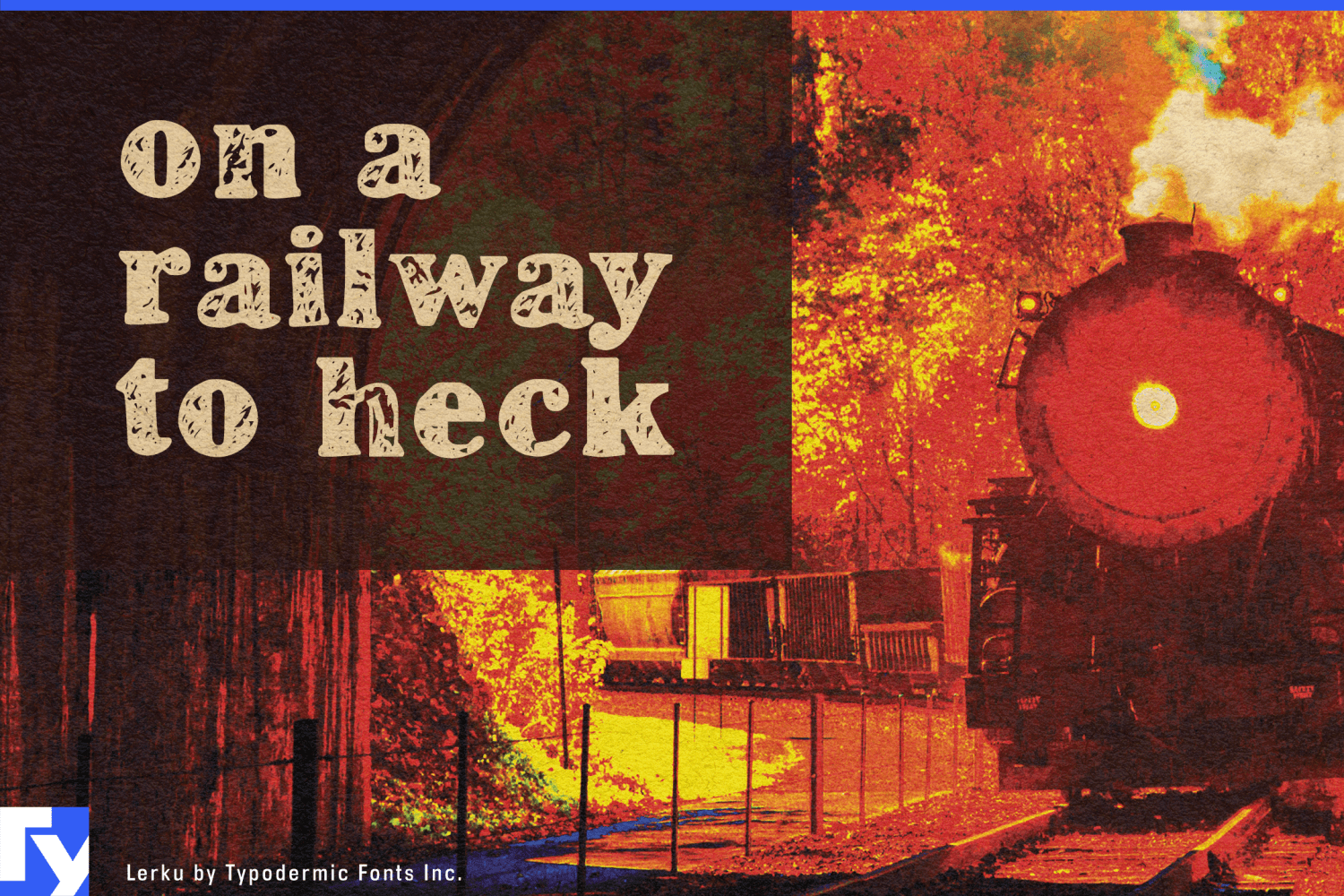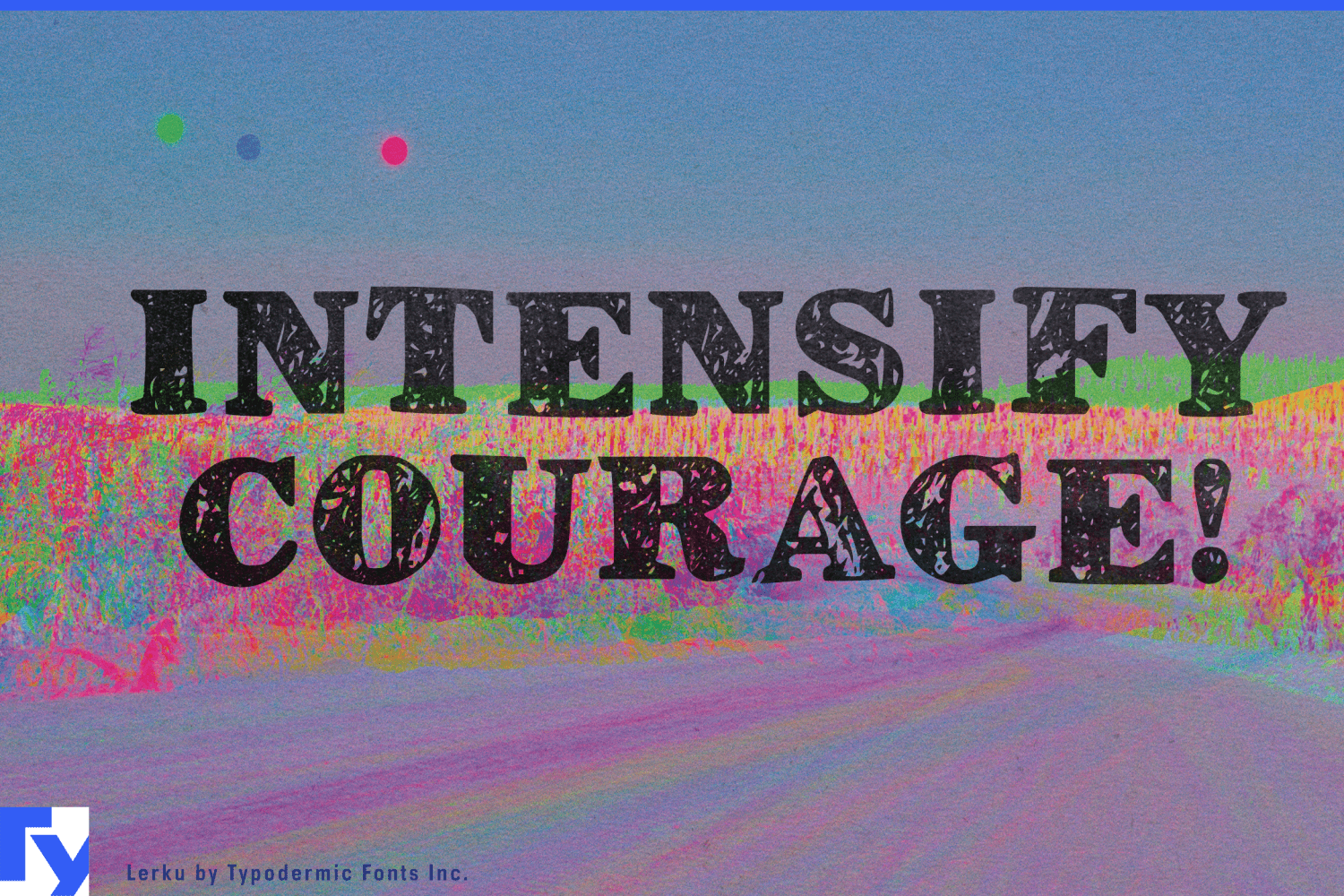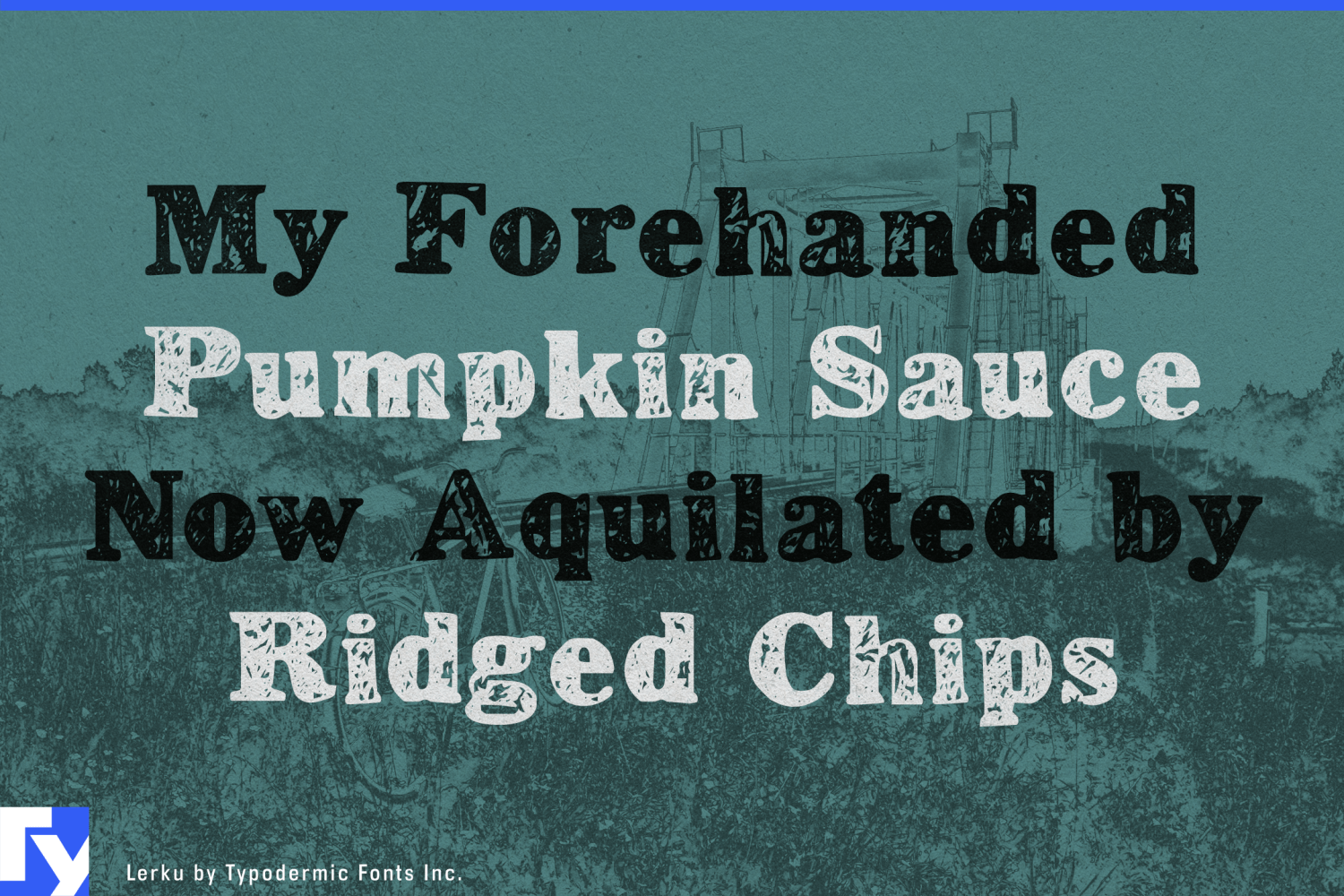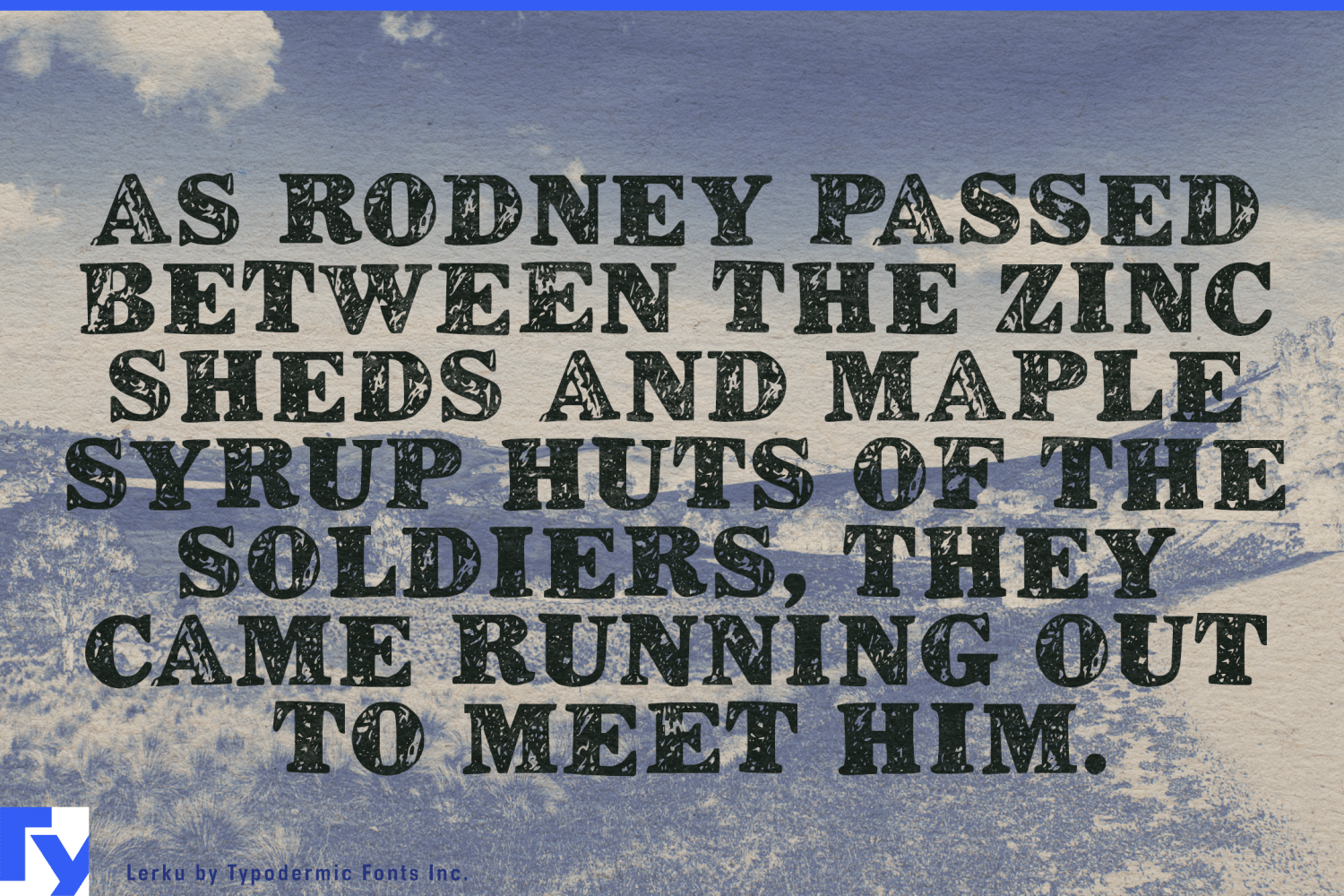
About Lerku
Lerku: where vintage grit meets digital rebellion. This isn’t your grandfather’s Bold Antique—it’s Bold Antique’s punk rock offspring. Imagine Morris Fuller Benton’s classic stumbling into a cyberpunk alley. That’s…